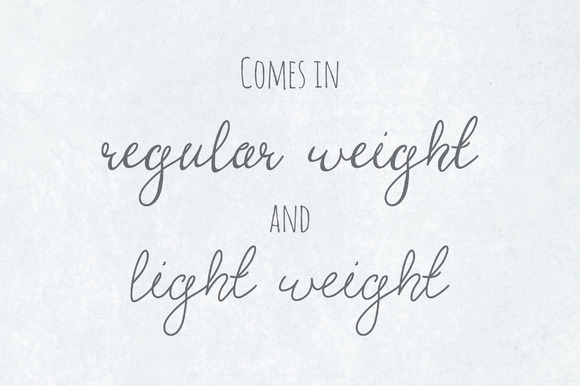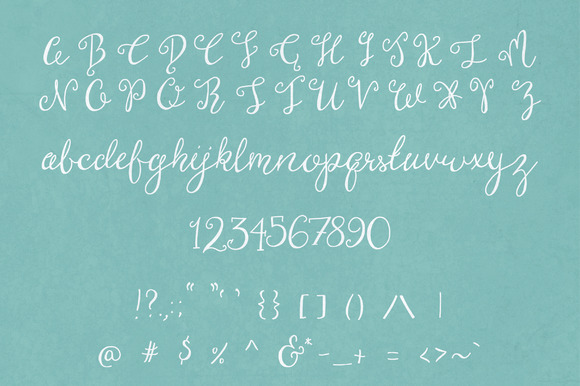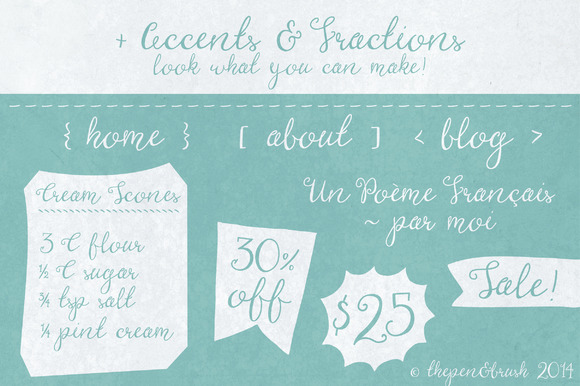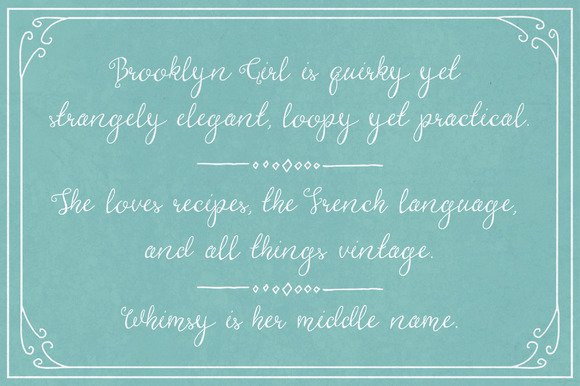
Introducing Brooklyn Girl Font: The Perfect Handwritten Font for Your Creative Projects
Are you a designer, crafter, or DIY enthusiast looking for a beautiful and unique handwritten font to add a personal touch to your projects? Look no further than the Brooklyn Girl Font! Inspired by the thriving handmade movement in Brooklyn, this stunning font is perfect for a wide range of creative applications, from wedding invitations to craft projects, and everything in between.
What Makes Brooklyn Girl Font So Special?
Brooklyn Girl is a beautiful handwritten font that features very curly capital letters combined with smooth flowing lowercase characters. The font comes in two weights: Brooklyn Girl Calligraphy Pen and Brooklyn Girl Ballpoint Pen, giving you flexibility and versatility in your design projects. Whether you’re looking for a elegant and sophisticated look or a more casual and playful feel, Brooklyn Girl Font has got you covered.
Key Features of Brooklyn Girl Font
- Comprehensive character set: The font includes all basic letters and currency symbols, copyright/trademark sign, fractions, and all accented letters needed for European languages.
- Beautiful ampersand: The Brooklyn Girl Font features a stunning ampersand that is perfect for use in wedding invitations, love letters, and other romantic designs.
Brooklyn Girl Font is a dream come true for designers and crafters who want to add a personal touch to their projects. Whether you’re creating custom wedding invitations, crafting handmade cards, or designing unique graphics, this font is sure to impress. The curly capital letters and smooth flowing lowercase characters give your text a beautiful, hand-crafted feel that’s sure to stand out.
- Experiment with different weights: Try using Brooklyn Girl Calligraphy Pen for more formal designs and Brooklyn Girl Ballpoint Pen for a more casual look.
- Pair with other fonts: Combine Brooklyn Girl Font with other fonts to create a unique and eye-catching design.
- Use in digital and print projects: Brooklyn Girl Font is perfect for both digital and print projects, from social media graphics to handmade crafts.